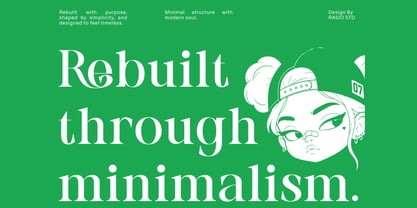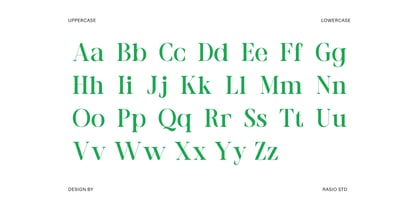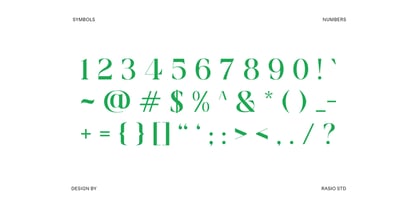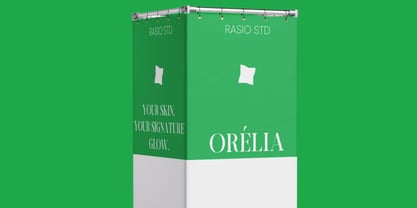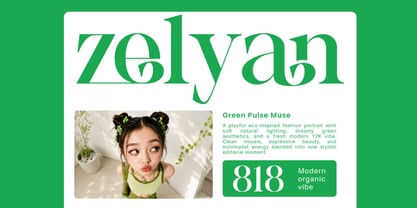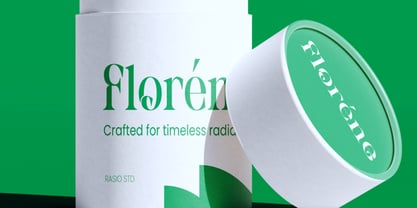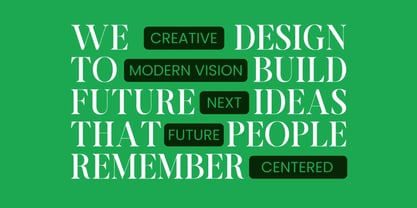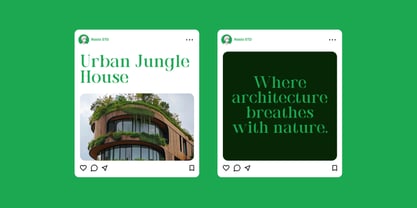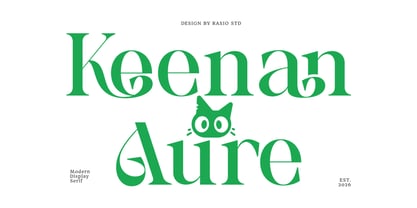
Keenan Aure
by Rasio Studio
The Keenan Aure Font Family was designed by Fajar Indra and published by Rasio Studio. Keenan Aure contains 1 styles. More about this family
Keenan Aure Modern Display Serif is a refined serif typeface featuring elegant curves, high-contrast strokes, and stylish ligature-inspired details crafted for sophisticated visual branding. The font includes uppercase, lowercase, numerals, punctuation, and providing flexibility for editorial layouts, luxury branding, logo creation, and premium typography projects. Its graceful serif construction combines timeless elegance with contemporary proportions, producing a clean yet artistic visual identity suitable for fashion, beauty, and creative industries.
Relevance & Use Cases is relevant for luxury branding, editorial publishing, fashion campaigns, beauty product packaging, premium logo design, and sophisticated marketing visuals. Its elegant letterforms and high-contrast serif style work effectively for magazine headlines, boutique identities, cosmetic branding, wedding stationery, social media graphics, lifestyle promotions,